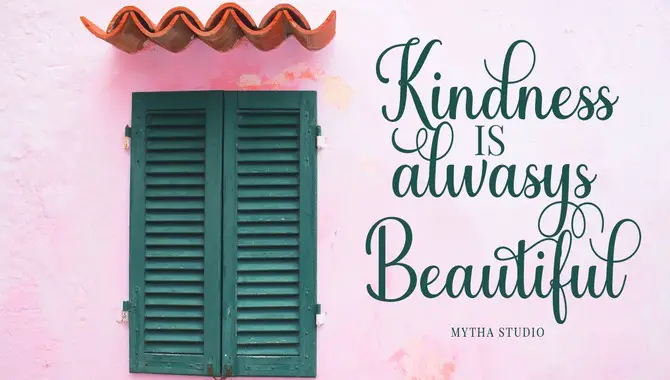
Designing With Baby Giovani Script Font: [Tips And Tricks]
Designing with Baby Giovani Script Font: Tips and Tricks is a blog post dedicated to helping designers navigate the challenges of using the Baby Giovani Script Font.
As one of the most popular script fonts in the design industry, Baby Giovani Script Font has a unique appeal that has captured the heart of many designers. However, it is essential to understand how to use it effectively to create stunning designs.
We’ll explore the intricacies of working with Baby Giovani Script Font and provide valuable tips and tricks to help you design quickly and confidently. You’ll learn how to pair it with other fonts, choose the right colors, and create stunning typography designs that stand out.
What Is Baby Giovani Script Font?
When it comes to designing invitations, greeting cards, or any baby-related stationery items, Baby Giovani Script Font is a popular choice among designers. This playful and whimsical font adds a unique touch to your designs that are hard to replicate with other fonts.
One key factor to remember when using this font is to ensure that the font size is legible and easy to read. Additionally, pairing the font with a simple sans-serif font can help balance out the design and make it more visually appealing. Experimenting with different colors and textures can also enhance the overall look of your design.
Designing With Baby Giovani Script Font 6 Tips And Tricks
When it comes to creating designs that exude a playful and whimsical vibe, Baby Giovani Script Font is the perfect choice. With its flowing curves and elegant script style, this font can add a touch of elegance to any design. To make the most of Baby Giovani Script Font’s unique look, pair it with complementary colors that allow it to stand out.
Experimenting with font sizes and styles can also create contrast and visual interest in your designs. Just remember to use this font sparingly to prevent overwhelming your viewers. Adding decorative elements such as swirls or flourishes can enhance the effect of Baby Giovani Script Font and take your designs to the next level. Finally, don’t forget to test your designs across multiple devices and platforms to ensure they look their best for everyone.
1. Brief History Of Baby Giovani Script Font
Baby Giovani Script Font has a rich history dating back to the early 20th century. An Italian calligrapher, Giovani de Faccio, created it with elegant curves and loops, making it ideal for traditional designs. Since then, people have popularly used Baby Giovani Script Font in various contexts, including wedding invitations, logos, and advertising materials.
Its playful and whimsical style makes it perfect for baby shower invitations, birth announcements, and other baby-related designs. Its availability in various weights and styles makes it versatile for various design needs.
2. Features And Typography Of Baby Giovani Script Font
Introducing the elegance and beauty of Baby Giovani Script Font, this font is a perfect choice for headlines or titles rather than body text. Its hand-drawn quality with varying stroke widths and subtle flourishes makes it unique and eye-catching.
Combined with other fonts, especially sans-serif fonts, it creates an excellent contrast that enhances its delicate, playful nature. Experimenting with color and texture can bring out its full potential, making it a perfect addition to any design project.
3. Glyph Count And Variants
With a glyph count of 409, Baby Giovani Script Font comes in various variants like regular, bold, italic, and bold-italic. It has a unique hand-drawn style that is perfect for adding a personal touch to any design project. The font is versatile enough for invitations, logos, packaging, and more. Its excellent legibility makes it easy to read even in smaller sizes. Its playful and elegant typeface makes it popular among designers looking for something unique and flexible.
4. Opentype Features And Related Tags
In addition to its elegant hand-drawn style. Baby Giovani Script Font offers a range of OpenType features that add variety and flair to your designs. These features include ligatures, swashes, and alternate characters that allow for more customization and flexibility in typography.
When using these features, balancing creativity with legibility and readability is essential for optimal results. Related tags such as “ornament” or “flourish” can help you find complementary design elements that enhance your overall composition.
Ans: Baby Giovani Script Font is best suited for projects that require a playful and whimsical look, such as children’s books or invitations. However, it may not be suitable for projects that require a more formal or professional appearance. This font is ideal for designs that incorporate hand-drawn elements and calligraphy. To find the best fit for your project, consider experimenting with different sizes and colors to achieve the desired effect.